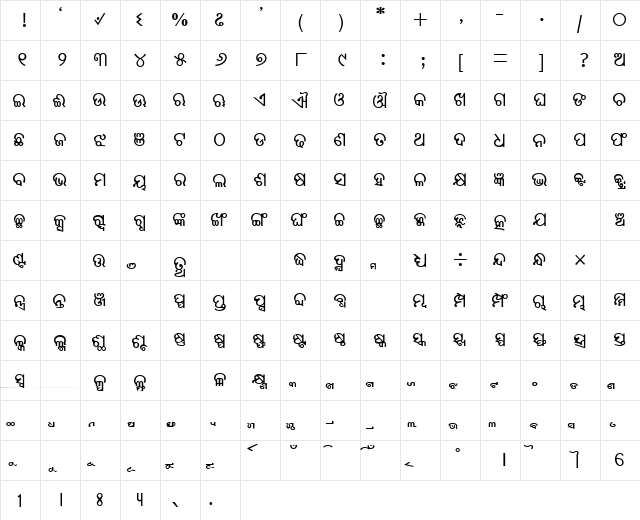
AkrutiOriAshok-99 Bold
Design Context for AkrutiOriAshok-99 Typeface
AkrutiOriAshok-99 offers clean, dependable letterforms without strong stylistic allegiance, making it a practical choice for designers who need flexibility. The heavy weight commands attention and anchors typographic hierarchies.